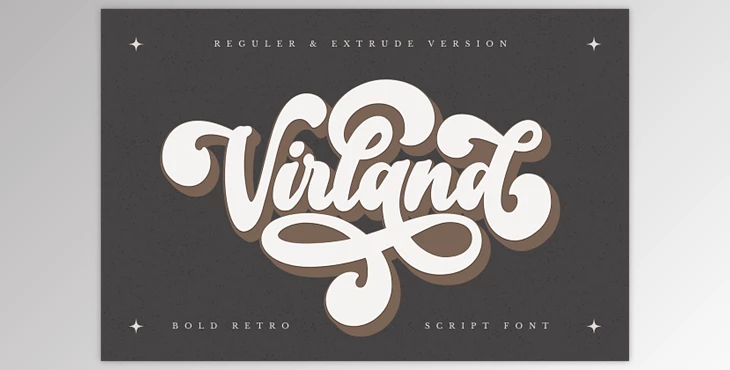
Virland - Bold Retro Script Font: Discover Virland, an enchanting and versatile Bold Retro Script Font that effortlessly transports your designs to a bygone era while infusing a touch of modern sophistication. This typeface emanates nostalgia and is a perfect fit for diverse creative projects, especially those with a vintage theme. Virland's timeless elegance and its multitude of alternate characters position it as the preferred choice for designers seeking to imbue their work with a captivating sense of yesteryear charm.
Unleash the charm of the past with Virland Script Font, where its alternates and ligatures provide endless possibilities for your designs. Elevate your creative projects with a touch of timeless elegance and a nod to retro aesthetics.
- A comprehensive set of uppercase and lowercase glyphs for versatile design possibilities.
- Inclusion of numbers, symbols, and punctuation for complete typographic expression.
- Multilingual support to cater to a wide array of language needs.
- Alternates and ligatures for creative customization and a unique touch.
- Extrude Version to add a layer of depth and visual interest.